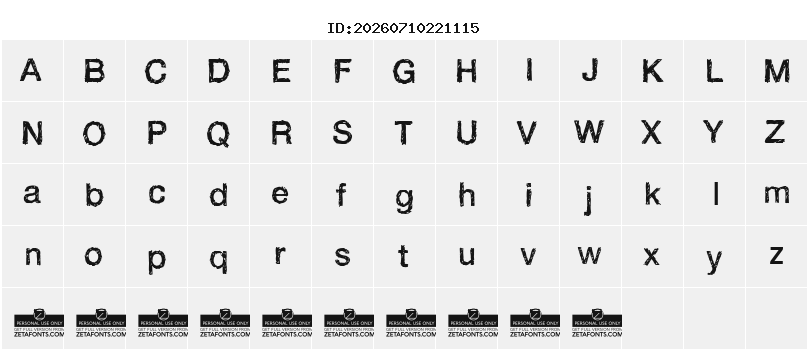
Handvetica Neue Preview
• Font Name: Handvetica Neue
• Font ID: CosimoLorenzoPancini: Handvetica Neue: 2015
• Full Font Name: Handvetica Neue
• PostScript Name: HandveticaNeue
• Designer: Cosimo Lorenzo Pancini
About Handvetica Neue.ttf
Handvetica Neue.ttf is a modern, elegant sans-serif font designed for ultimate readability and visual harmony. Perfect for branding, headlines, web design, and print materials.